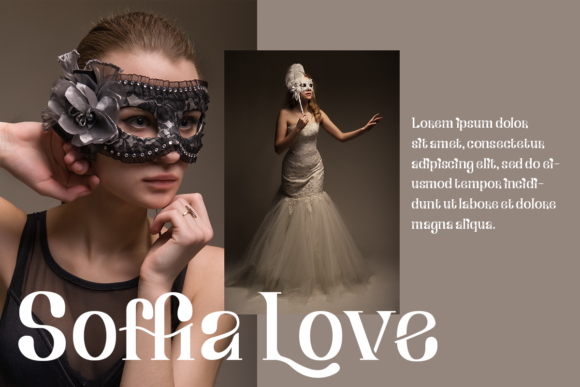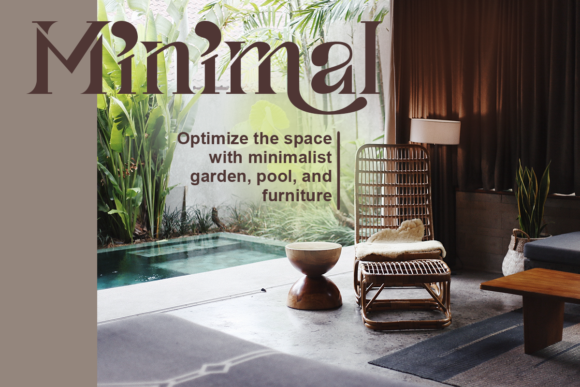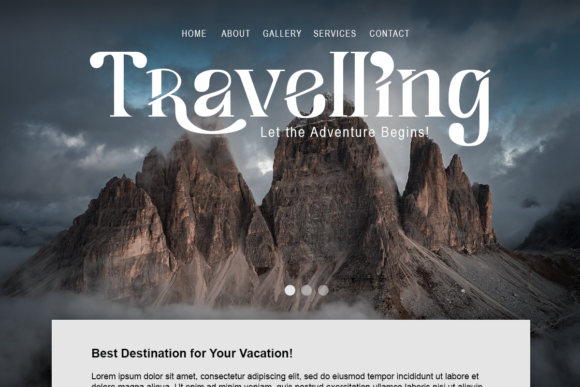
Introduction to Parisien Font
Parisien is a modern, detailed and distinct display font.
This font is PUA encoded which means you can access all glyphs and swashes with ease Fall in love with its incredibly versatile style and use it to create spectacular designs.